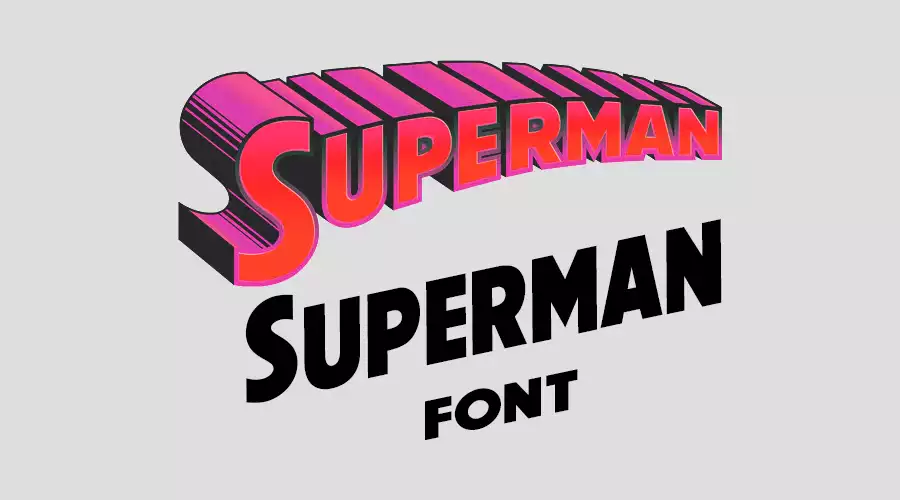
About the Superman Font
The title font used on the Superman comic book cover is a custom font with 3D effects, and a font named “Up Up and Away” is similar to it.
Up Up and Away font is designed by John Roshell. It is a custom-designed font, inspired by the iconic “Superman” logo and title font used on the covers of Superman comic books. It features stylized lettering with a red and yellow color scheme, with sharp, angular edges and a distinct, recognizable shape.
It is designed to be highly legible and easy to read, making it ideal for use in headlines and titles. The font is not an official font used by DC Comics, but it’s a fan-made font, and it can be used for personal and commercial use with the proper license. The font is often used in comic books, movies, television shows, and other media featuring the Superman character, as well as on merchandise such as clothing and toys.
Superman is a popular comic book series featuring the superhero character Superman and published by DC Comics. It has also been adapted into other forms of media, such as movies and TV shows. The “Superman” word logo is the iconic logo used to represent the superhero character Superman, who first appeared in Action Comics #1 in 1938. The logo consists of the word “Superman” written in bold, stylized lettering with a red and yellow color scheme. The logo has undergone several variations over the years, but the basic design has remained relatively unchanged since its debut. It is widely recognized and has become one of the most recognizable symbols in popular culture.
The font used for the “Superman” logo is a custom font created specifically for the character. It is not a commercially available font and therefore cannot be downloaded or purchased. The font is designed to be bold and stylized, with sharp, angular edges and a distinct, recognizable shape.